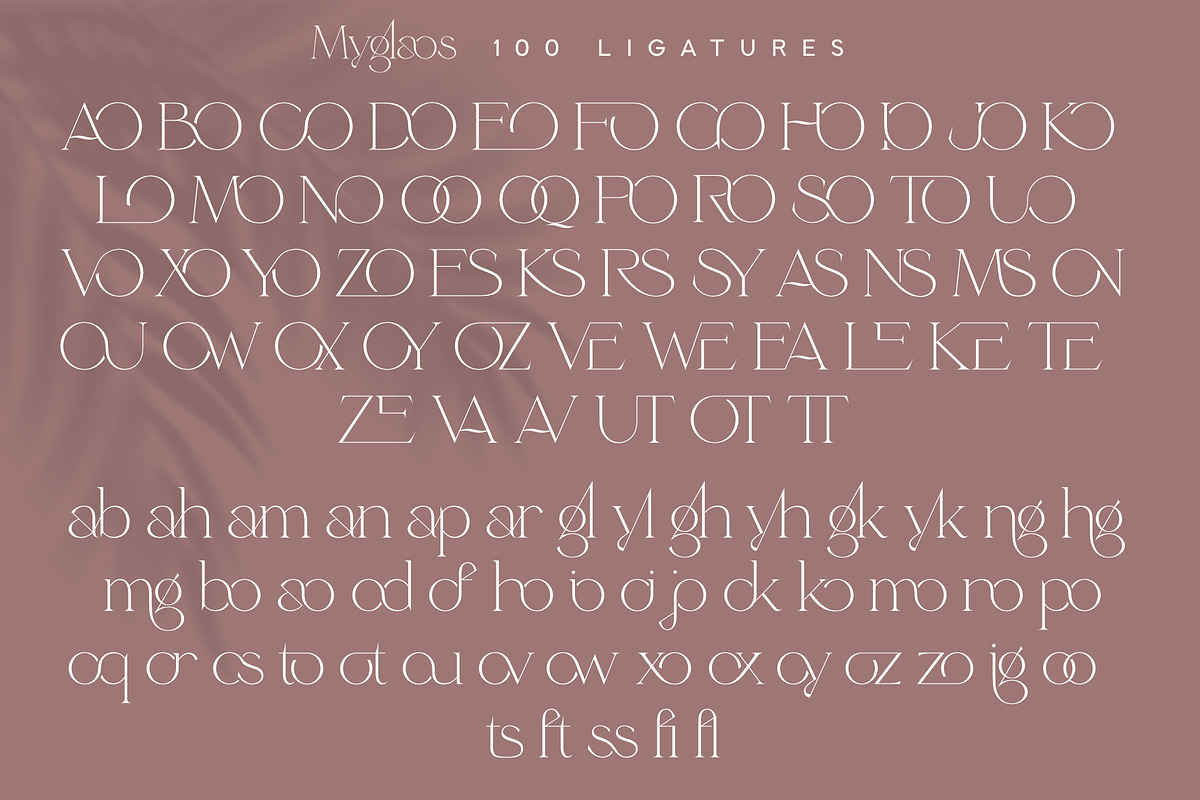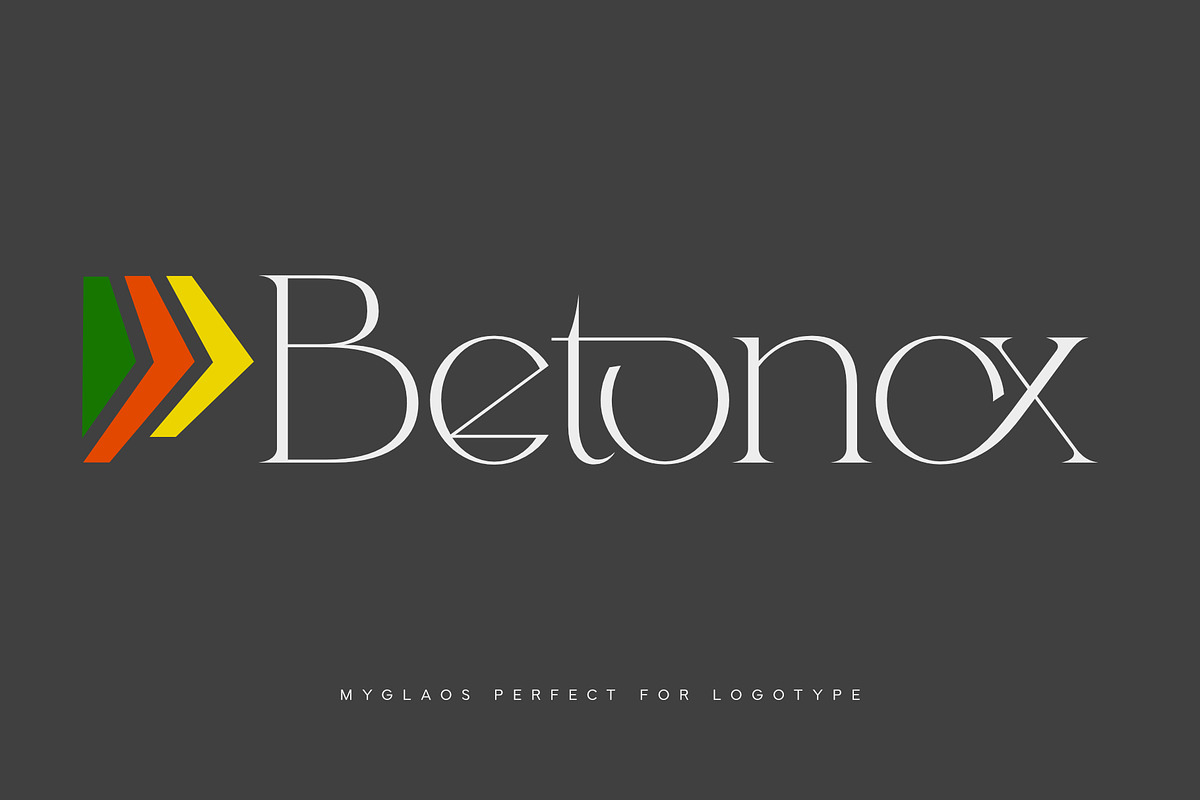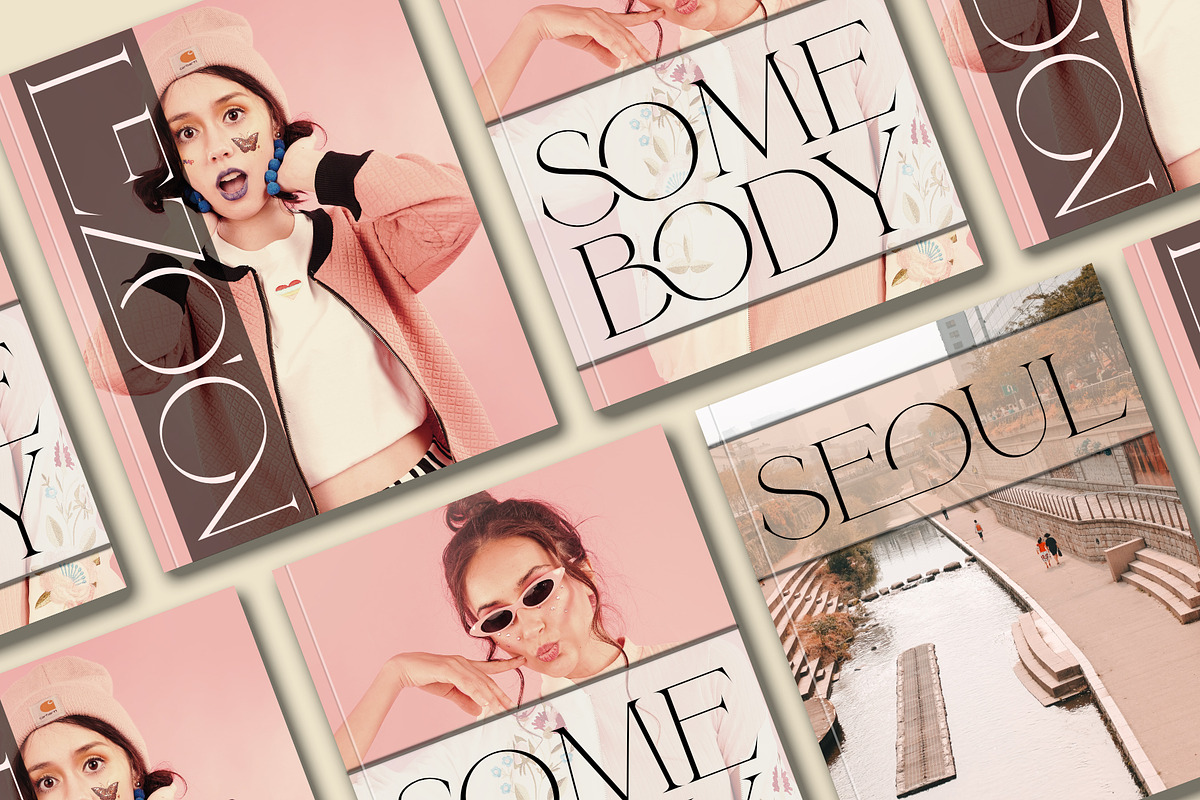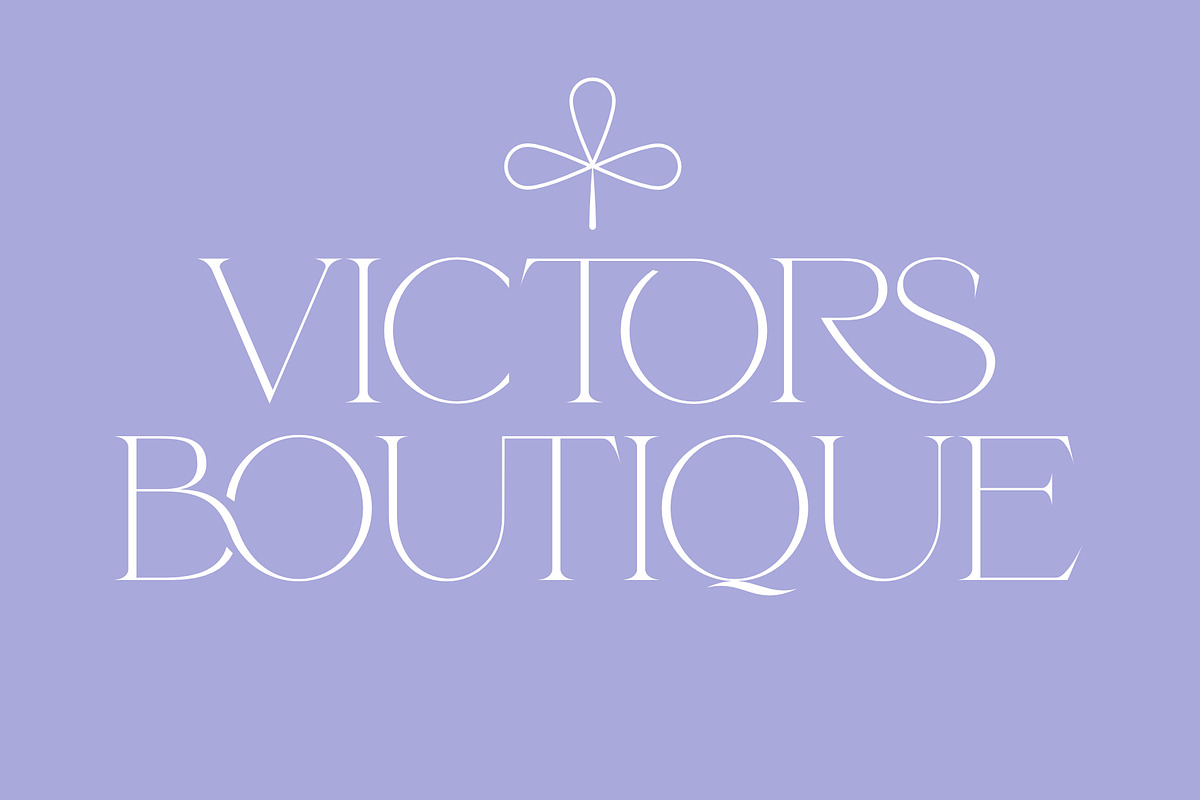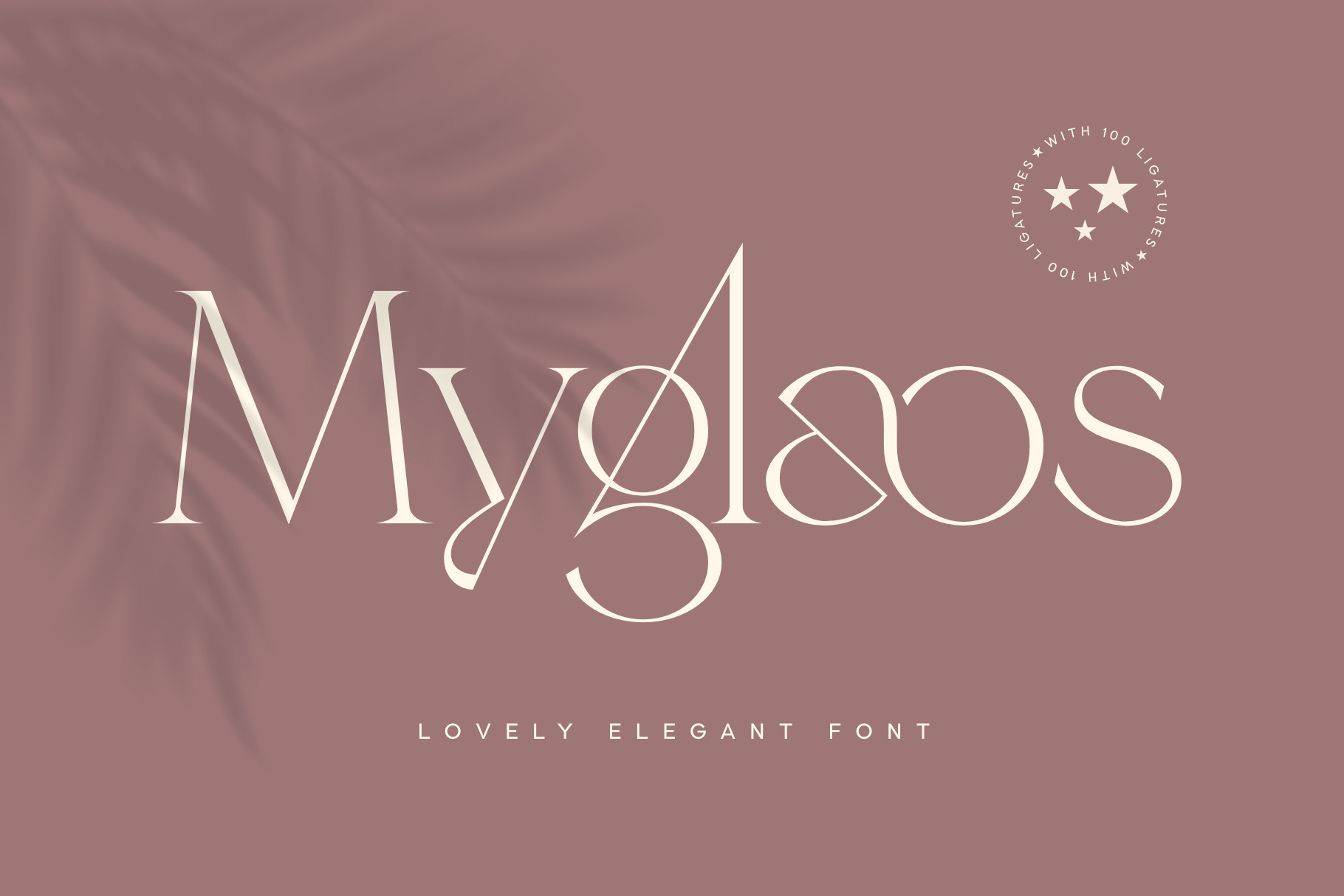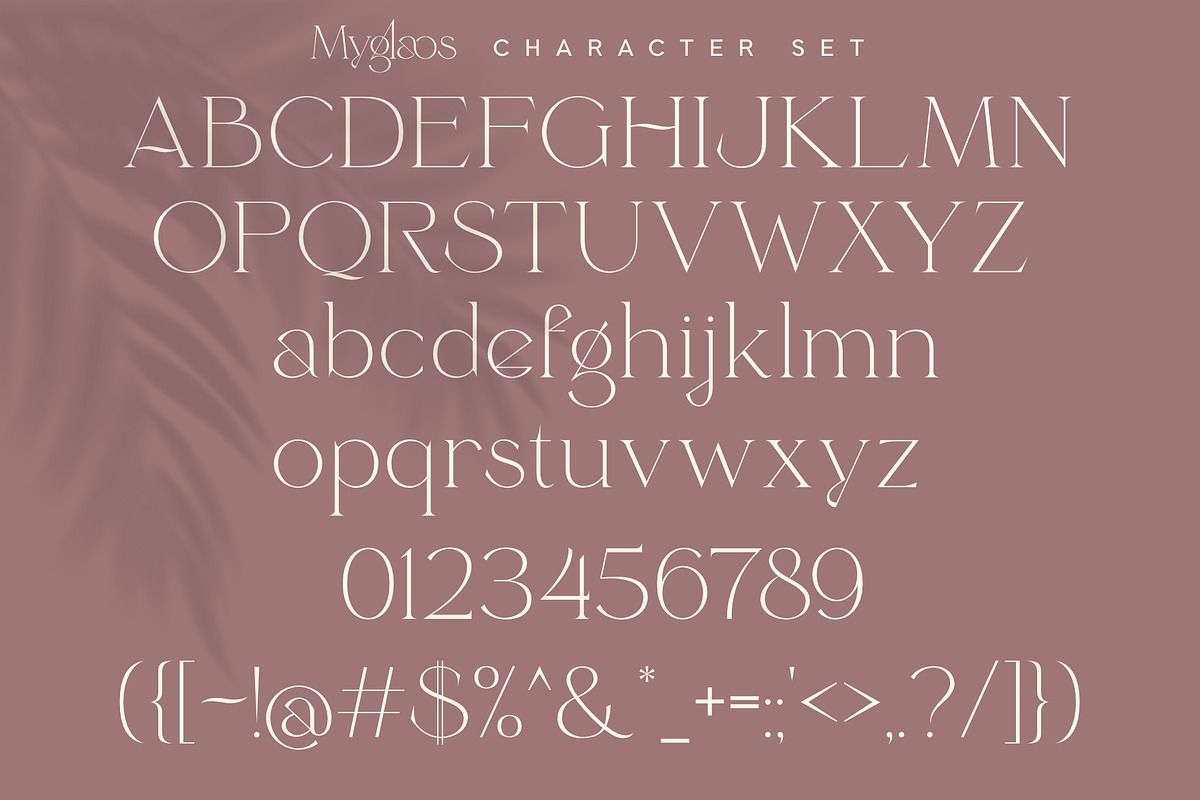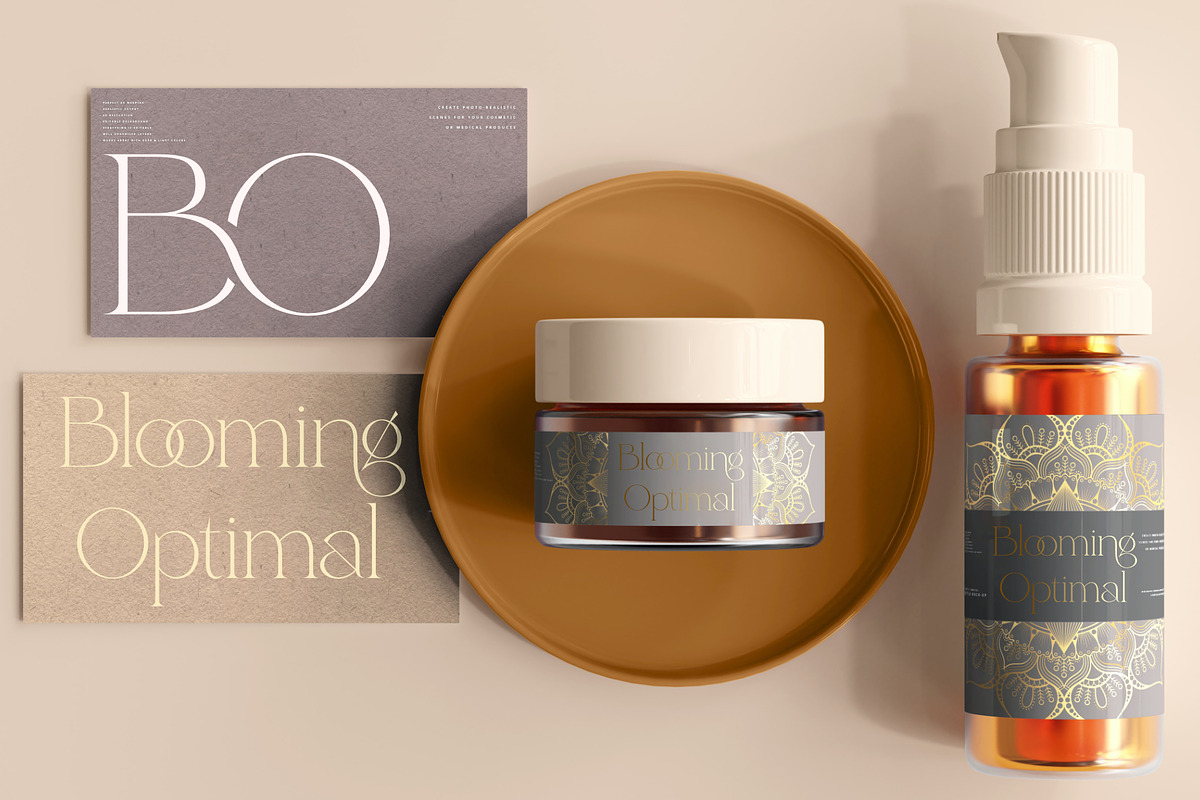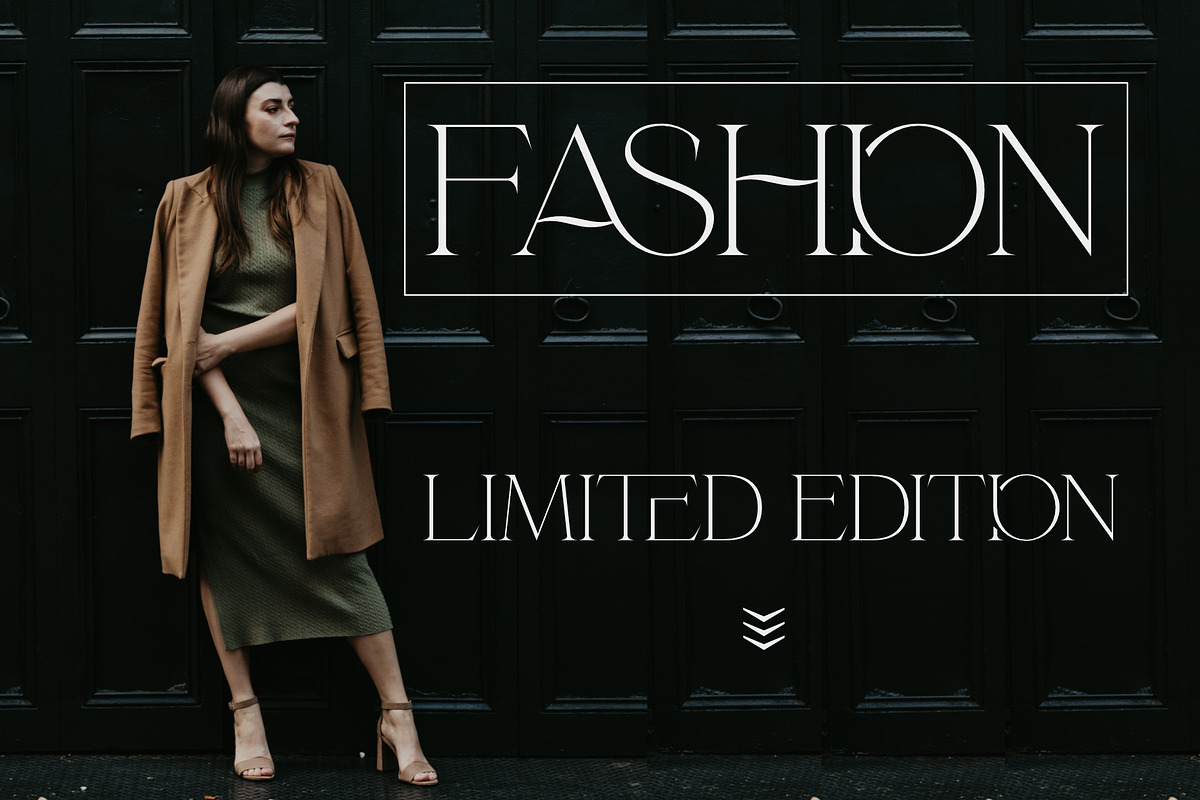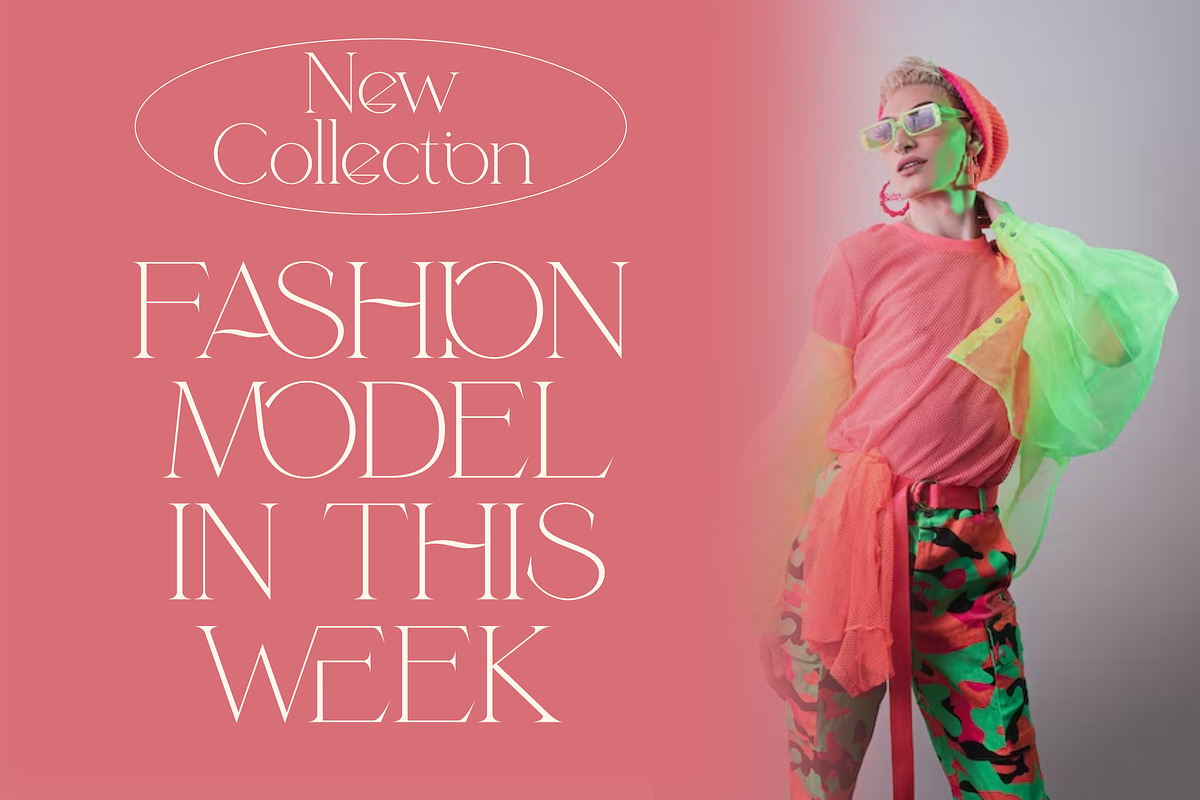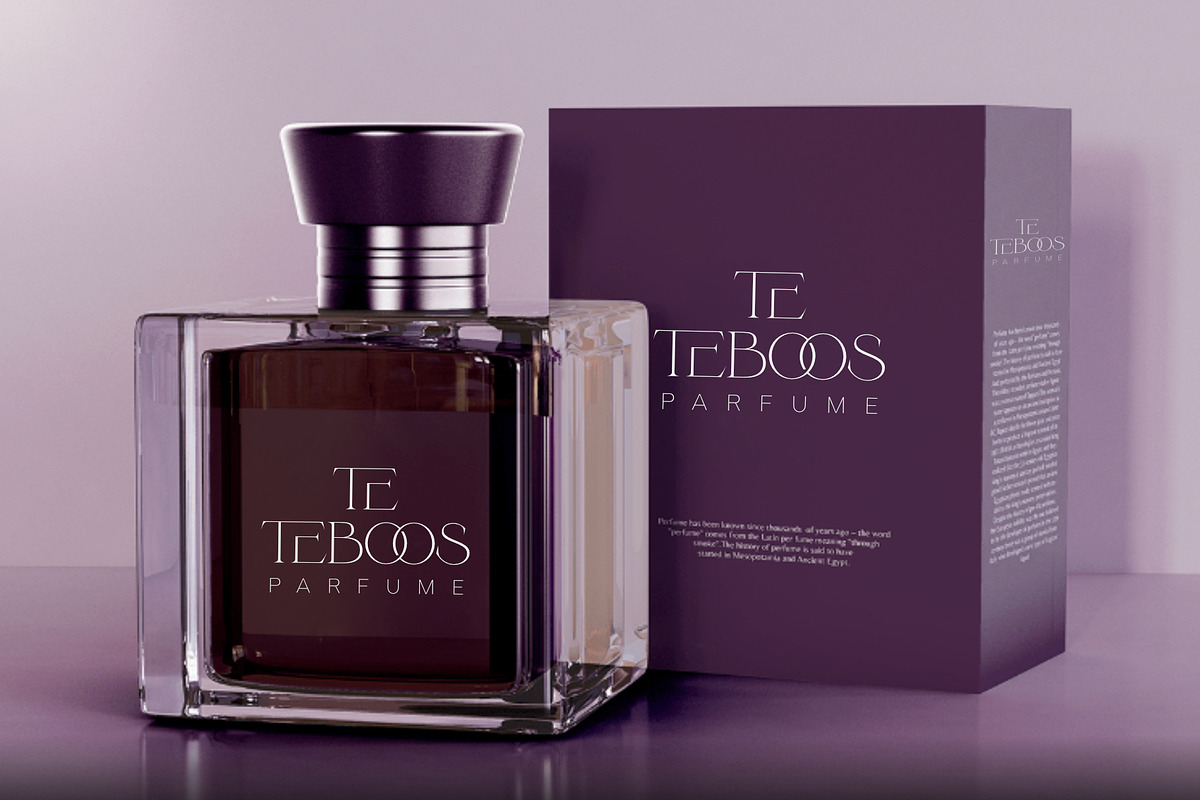
Myglaos | Lovely Elegant Font
Myglaos is a lovely elegant font for branding and logo design.
This typeface includes a massive selection of ligatures, making it perfect for a variety of creative projects such as branding, logo design, content creation, packaging designs, stationery & so much more.
Mygloas is also included full set of:
- Multilingual characters
- Ligatures collection